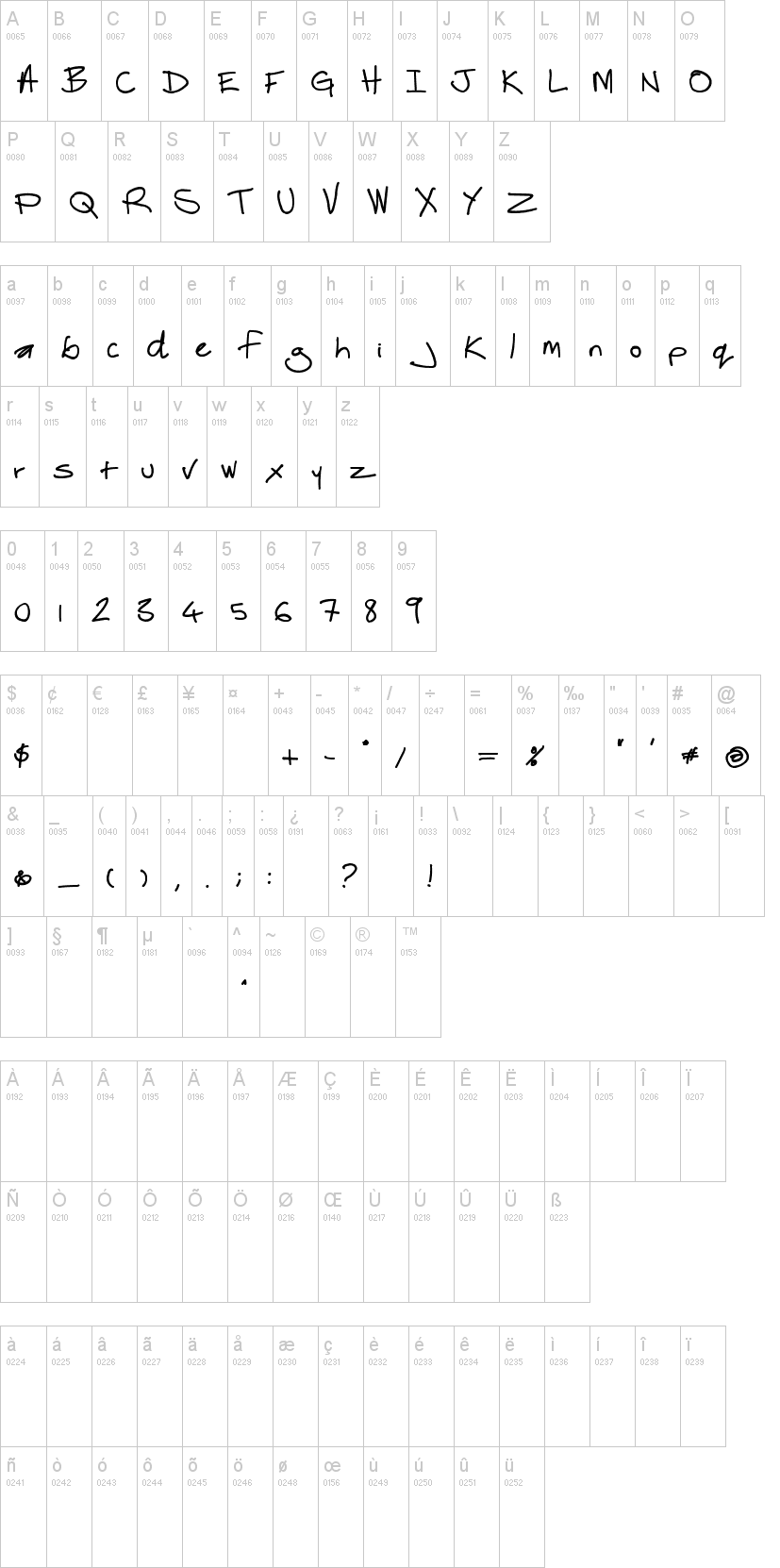
thebestofmylovesemibold.ttfthebestofmyloveregular.ttfthebestofmylovelight.ttfNote of the authorA casual handwritten font, handmade by Justin Mervyn Biddle at eStudio. Includes numbers and punctuation. It also includes four weights light, regular semi-bold and bold.